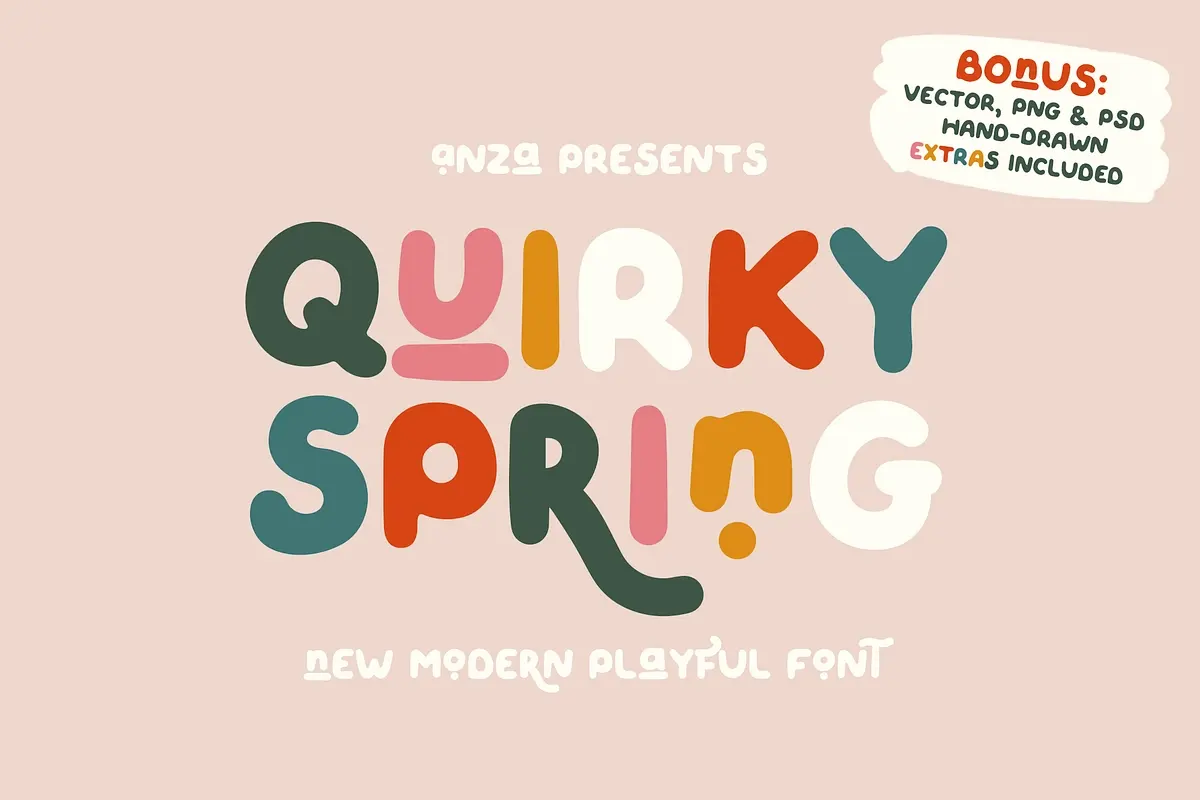
Quirky Spring Font Free Download is a playful and cheerful font family that captures the lighthearted energy of springtime. With its bouncy letterforms, fun curves, and handcrafted charm, this typeface is perfect for kids’ projects, greeting cards, product packaging, seasonal promotions, and anything that calls for a dose of joy and creativity.
Designed to bring smiles, Quirky Spring includes multiple styles and variations—making it easy to mix and match for dynamic, expressive typography. It features uppercase and lowercase letters, numerals, punctuation, and whimsical alternates that add personality to every word.
Whether you’re designing for a children’s brand or just want to brighten up your layouts, Quirky Spring Font Free Download is the perfect tool to make your designs pop with playful energy. Try it in personal or demo projects, and don’t forget to purchase the appropriate license for commercial use. Let your creativity bloom with this delightful and versatile font family.